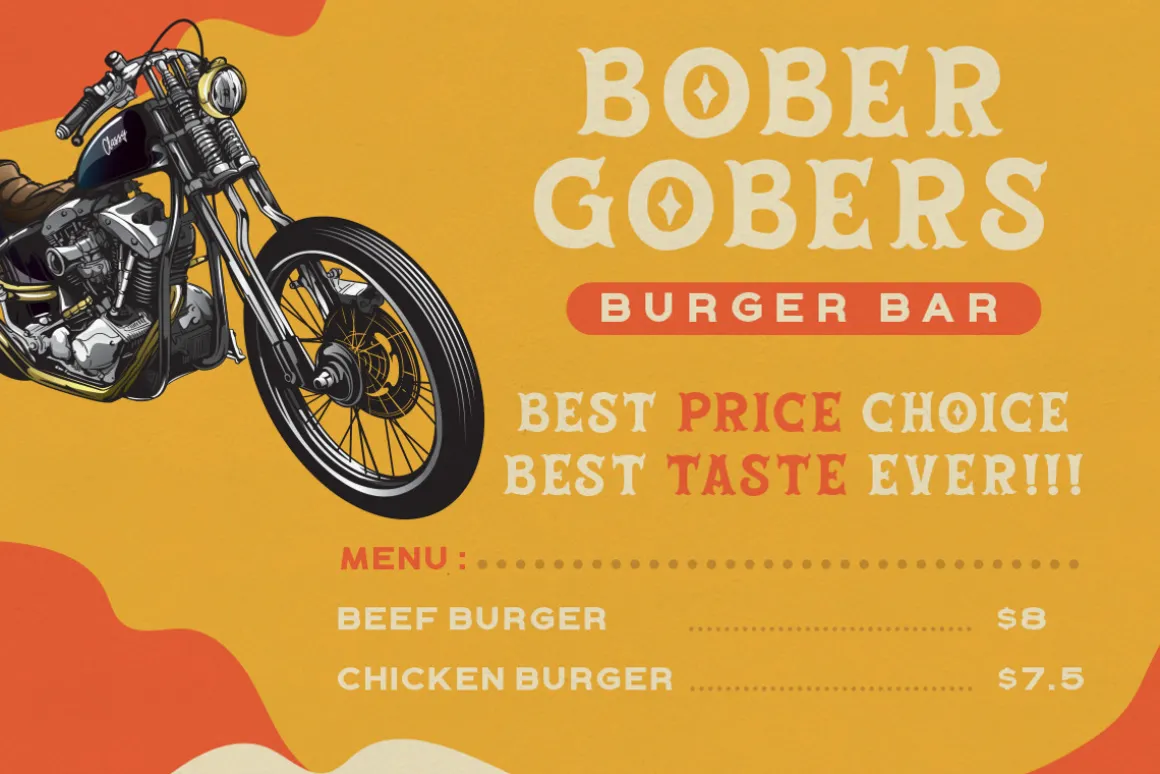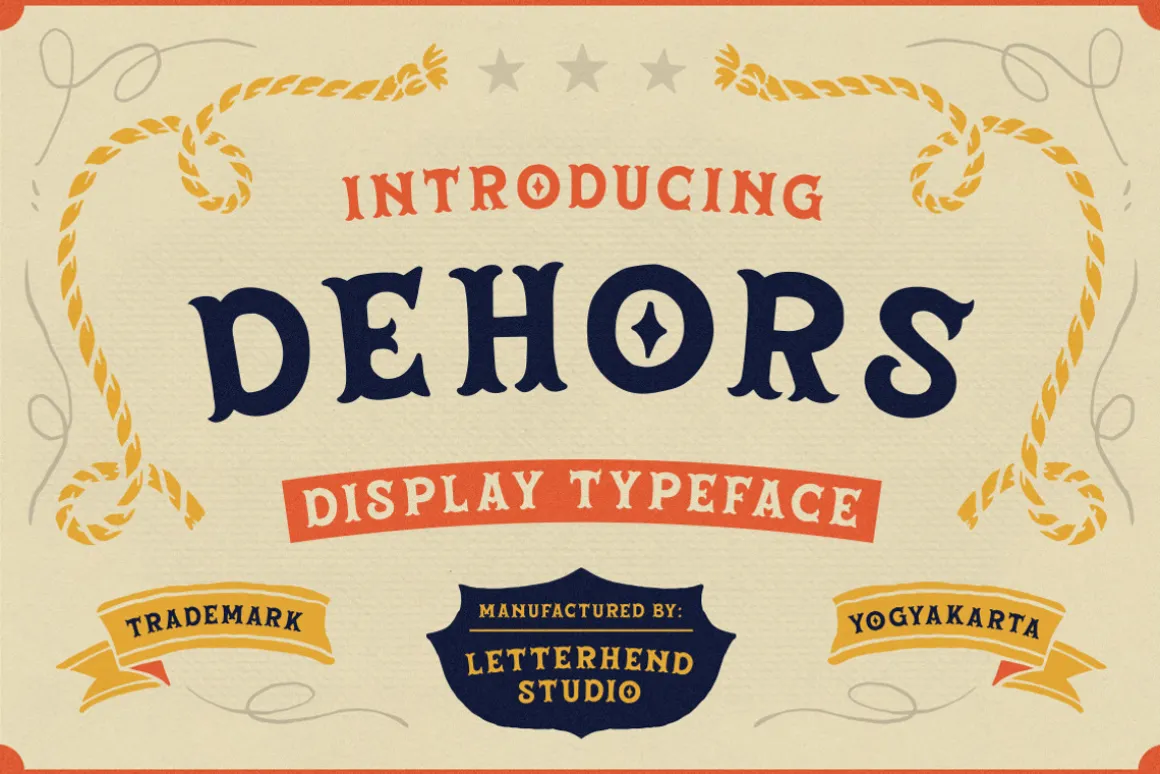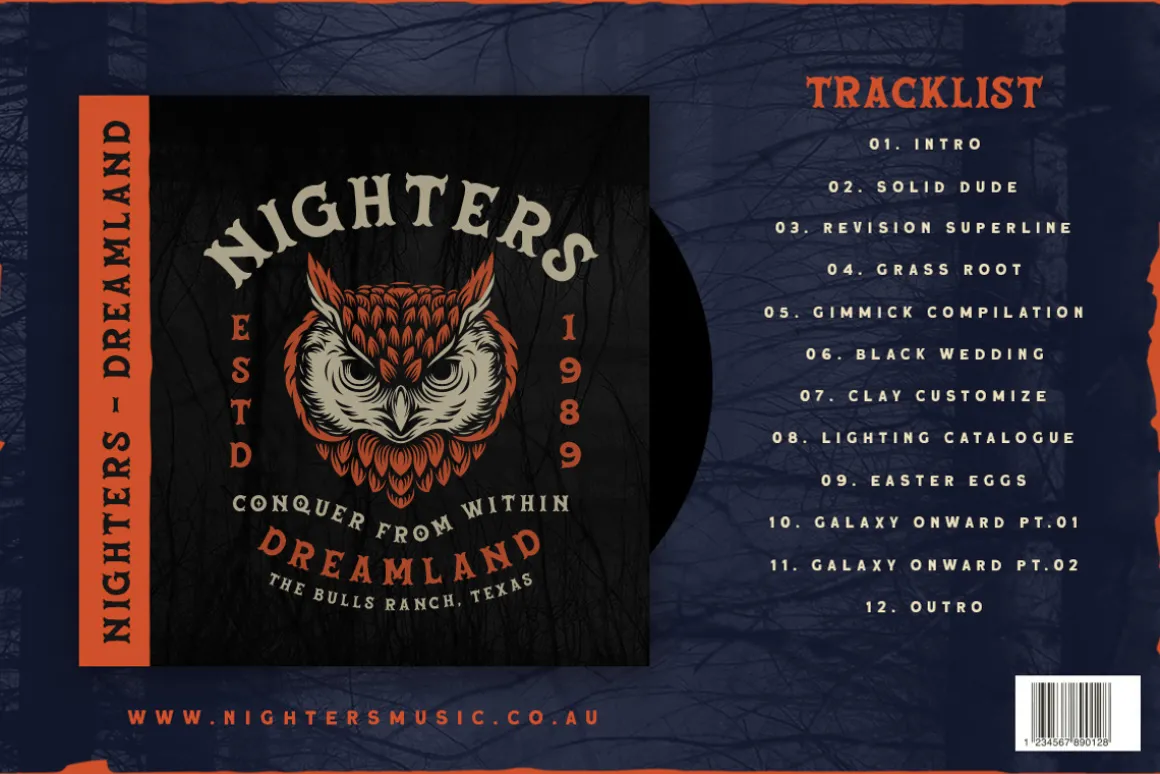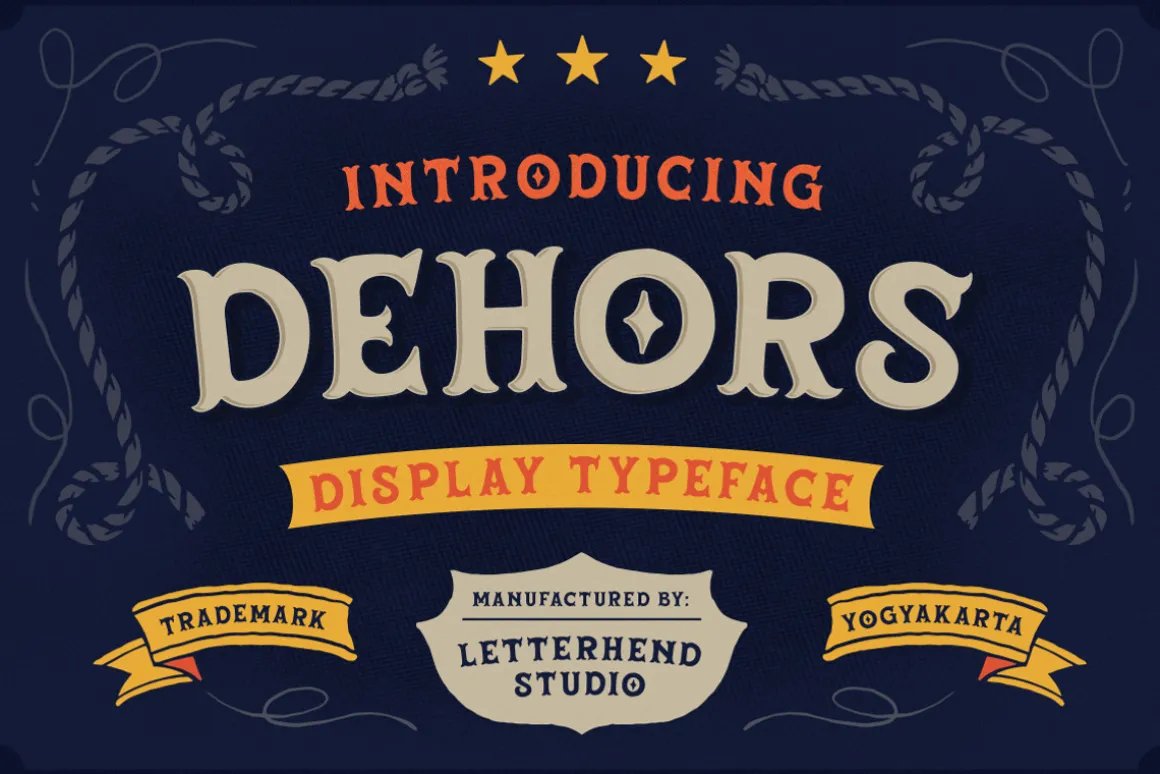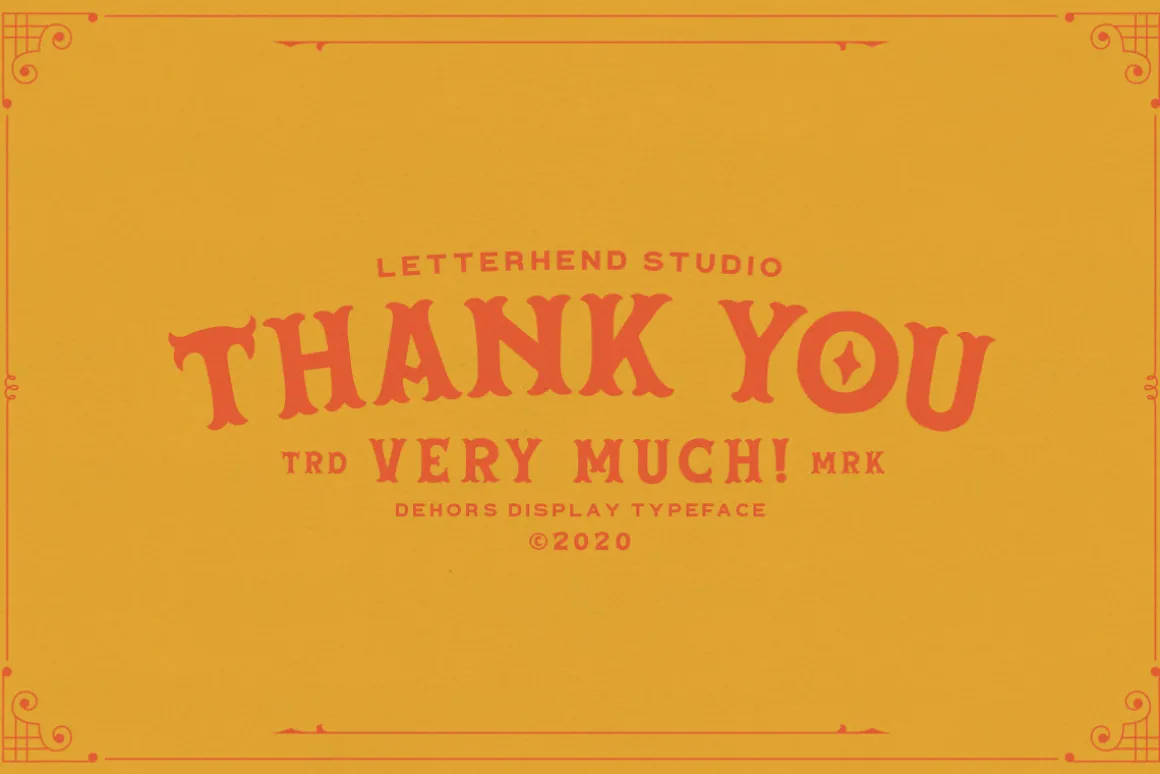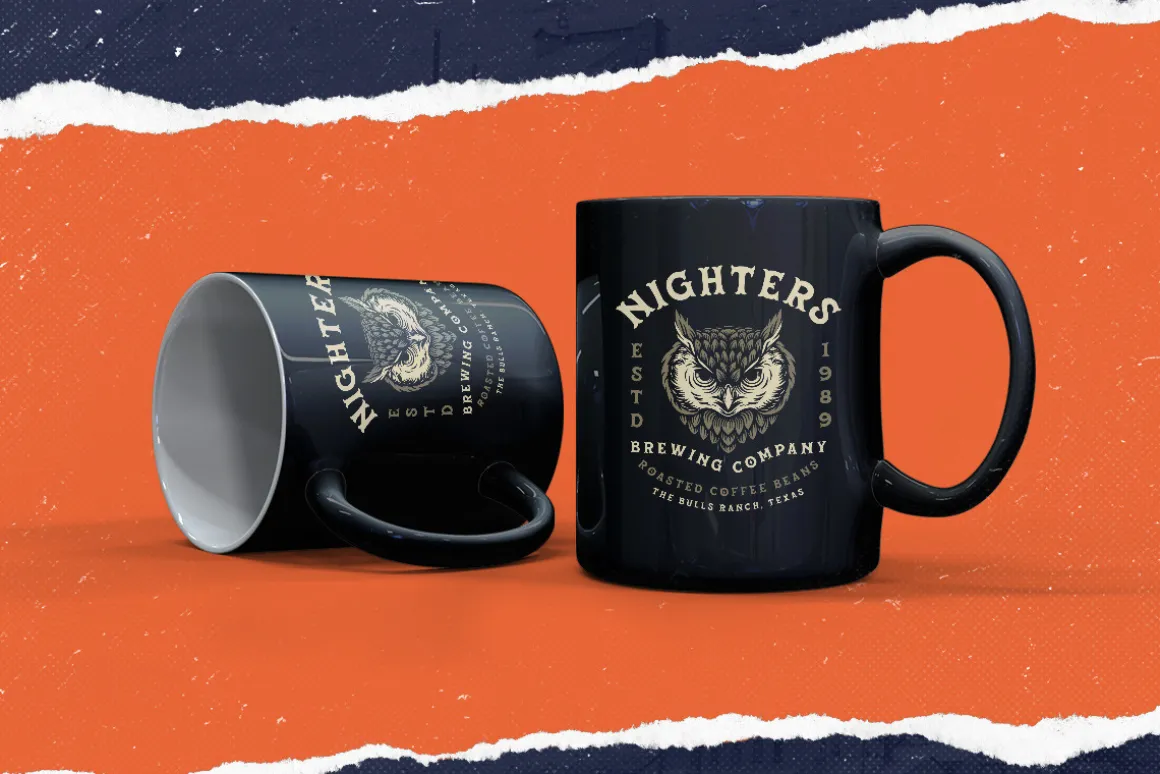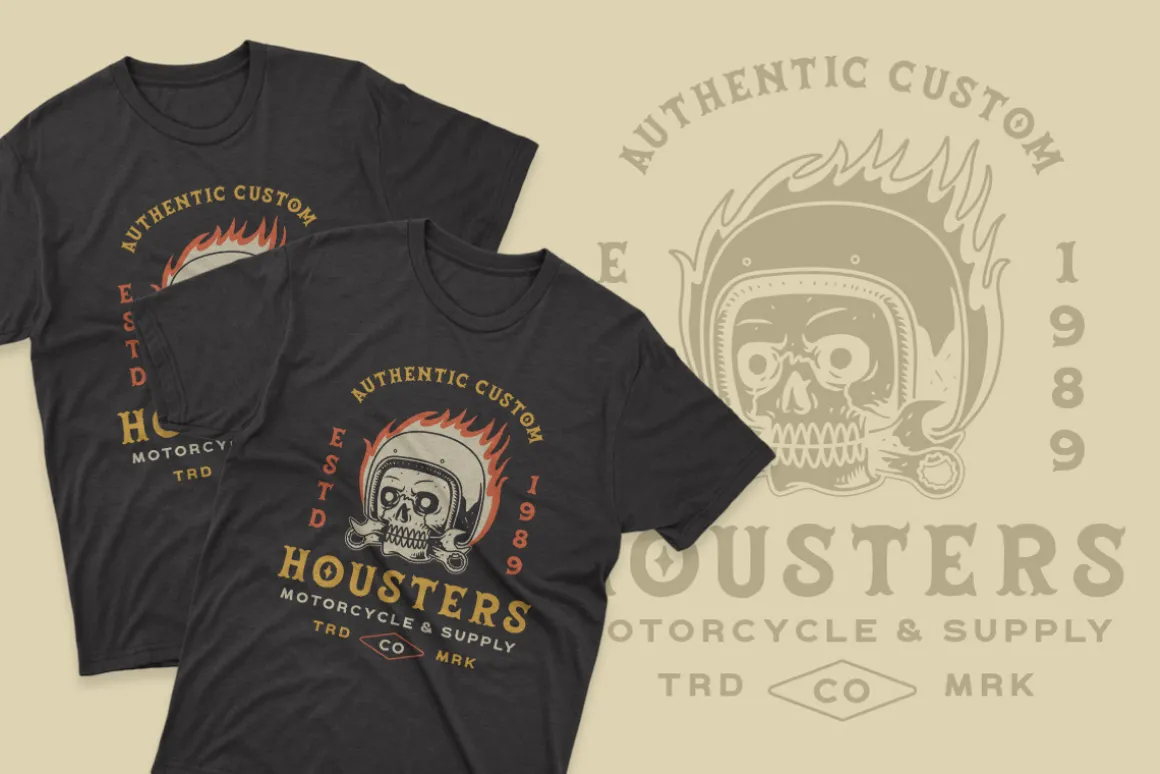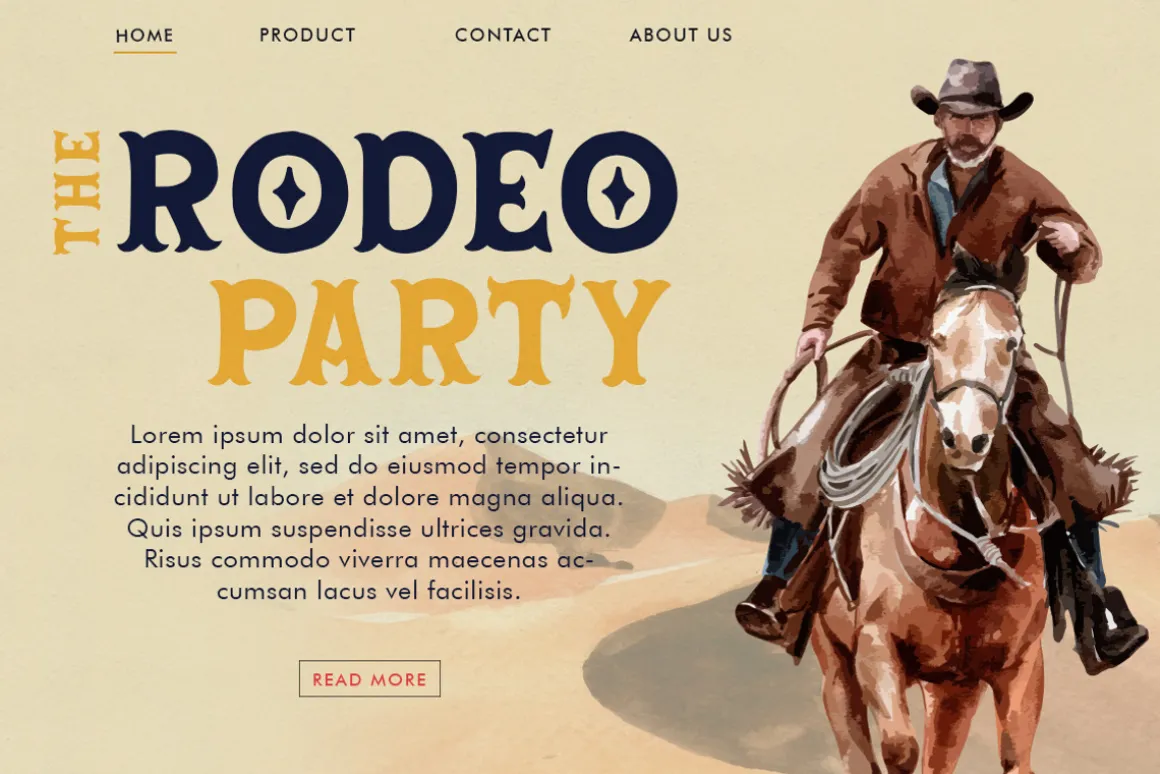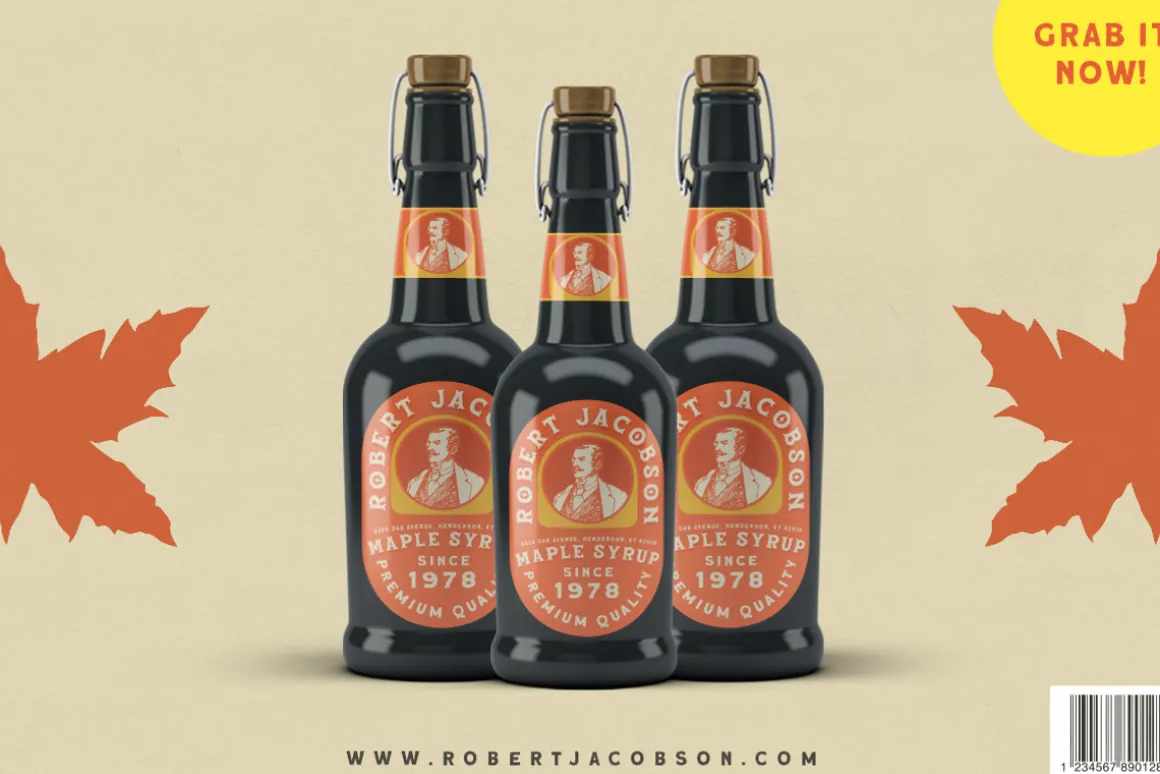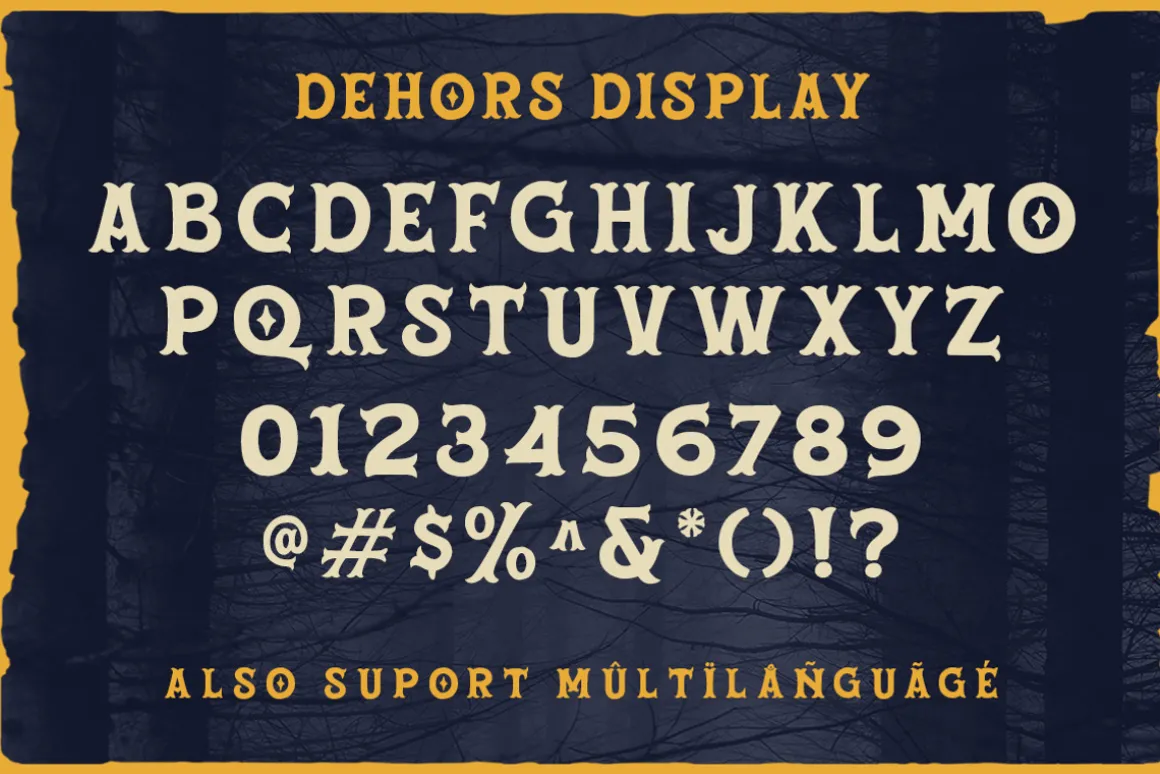
Introducing, Dehors – A Western Display Typeface. Suitable for design needs with a touch of classic western, especially in logo, and the other various formal forms such as invitations, labels, logos, magazines, books, greeting / wedding cards, packaging, fashion, make up, stationery, novels, labels or any type of advertising purpose.
- numbers and punctuation
- multilingual